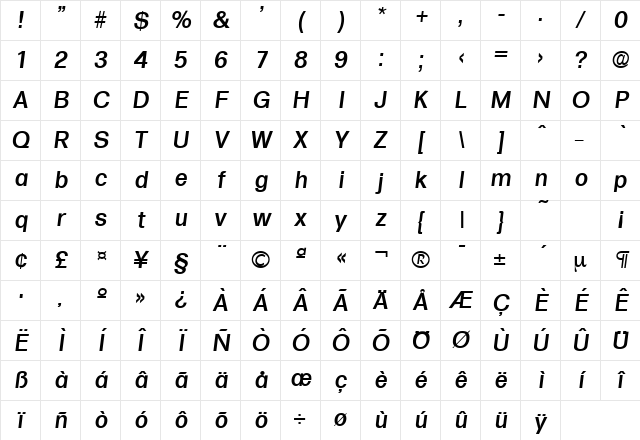
Design Context for Formula-Serial-Medium
Formula-Serial-Medium is a composed and adaptable typeface that performs quietly and consistently across a wide range of design contexts. The slanted form adds forward momentum and visual energy.
Pro Tip: Use Formula-Serial-Medium for emphasis, pull quotes, and subheadings where its slanted energy can add rhythm to the layout.